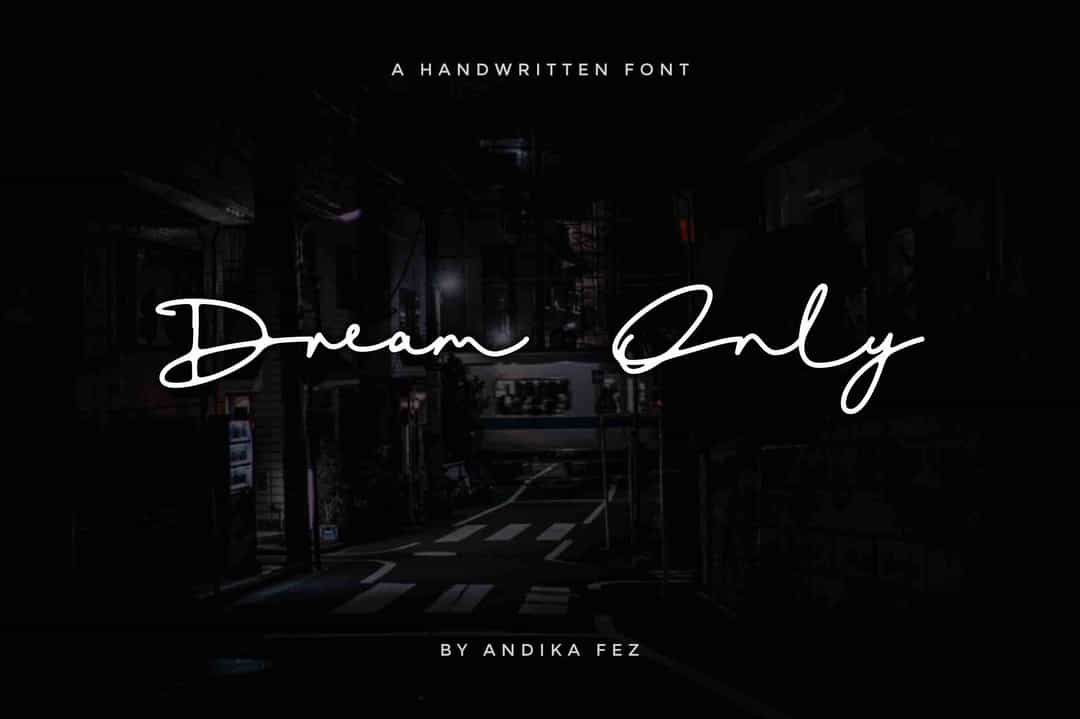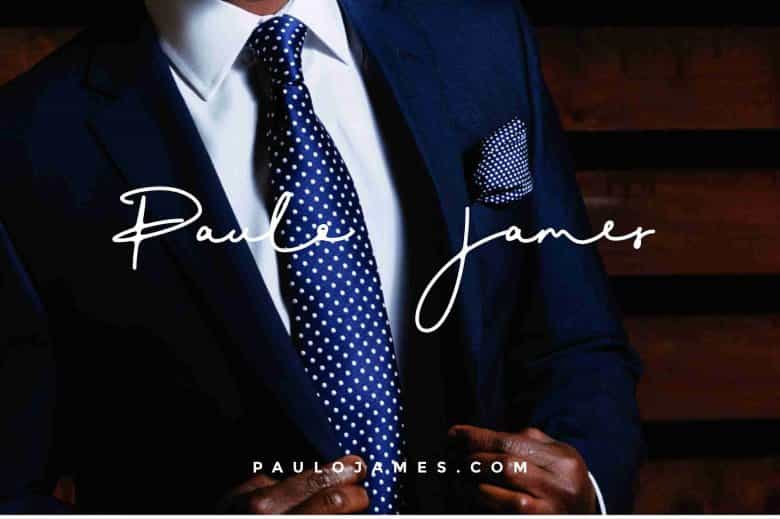
Discover Dream Only Script Font, part of the Commercial Handwritten collection—a versatile and unique font perfect for adding a personal touch to your projects. Download it for free and enjoy crafting designs with style, from invitations to social media posts. This font is available exclusively for personal use, giving you the freedom to create without limits. Unlock your creativity with Dream Only Script Font today!
Dream Only was created and published by Andika Fez. and as a handwriting font it allow us to make any style we want to do, with this best and beautiful style like Dream Only in script handwritten font for your branding logos wedding design posters ads etc. Don’t wait any longer. Get downloading and test out your style!